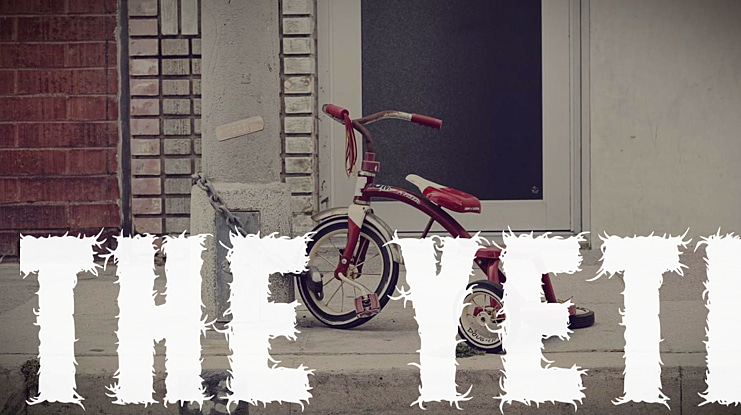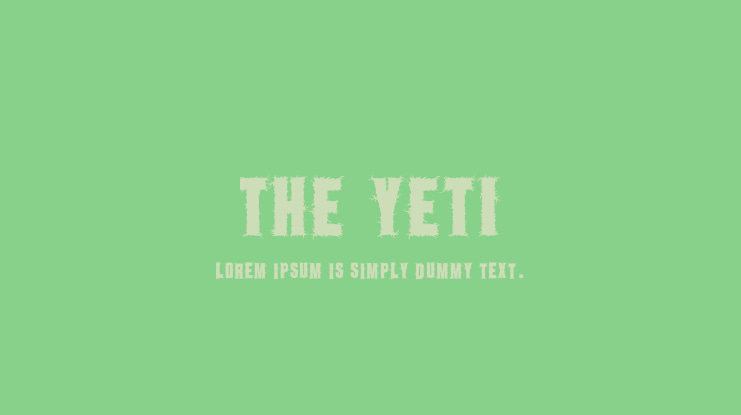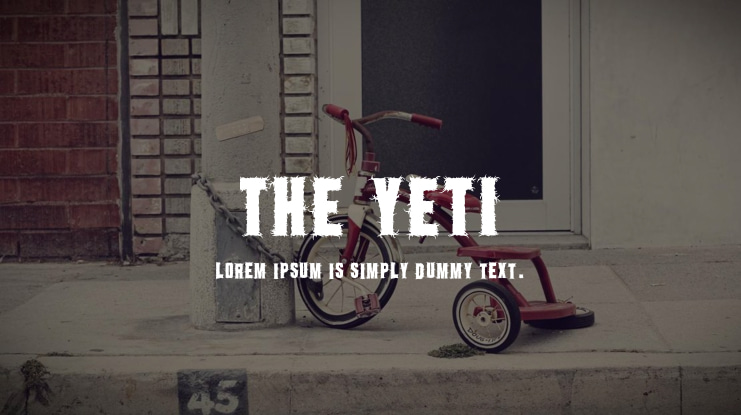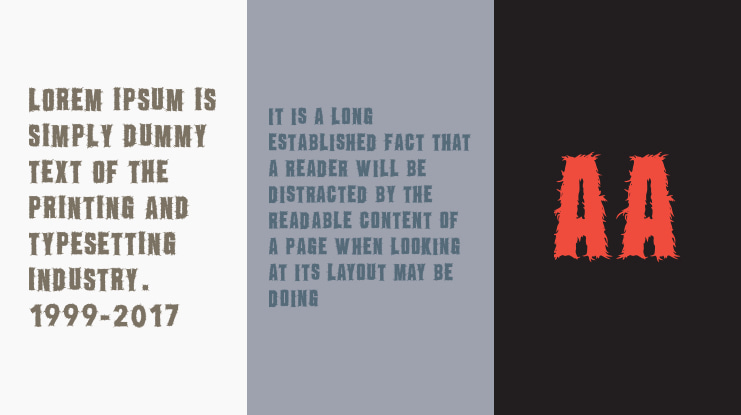
the yeti Font
Just in time for Halloween! A furry and fluffy font, inspired by fur (obviously!). Initially I opted for something intimidating (had a grandiose yeti in mind), but the final font can pass as cute also.
Includes Greek.